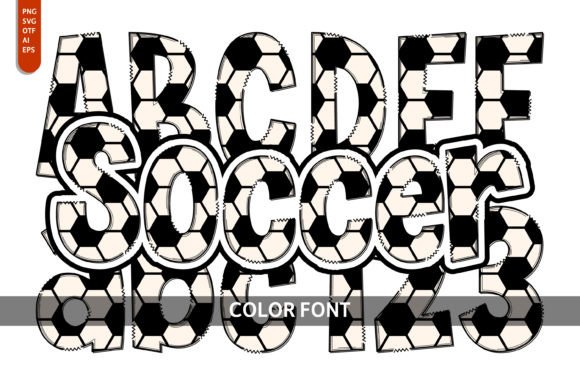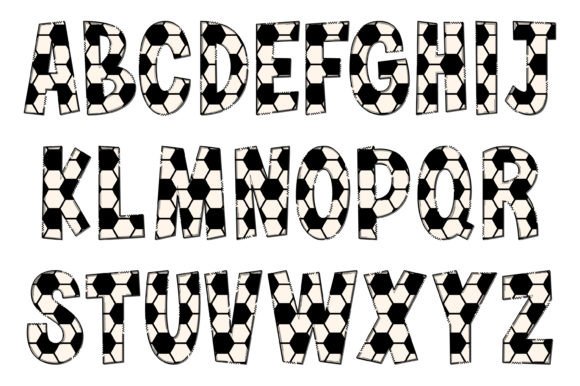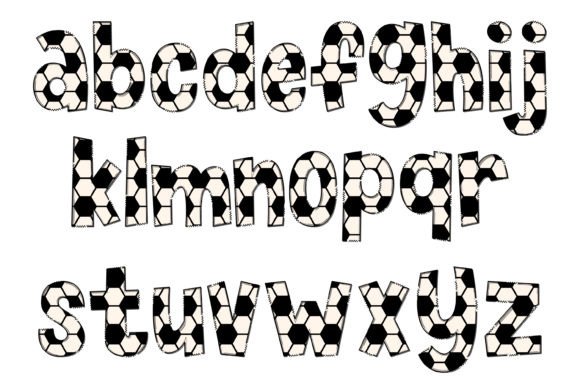
Soccer Font
This font is often used in designs that aim to convey a playful or artistic feel, such as children’s books, posters, invitations, greeting cards, and more. For instance, children’s books often utilize fonts that are whimsical, colorful, and easy to read, creating an engaging reading experience for young audiences.